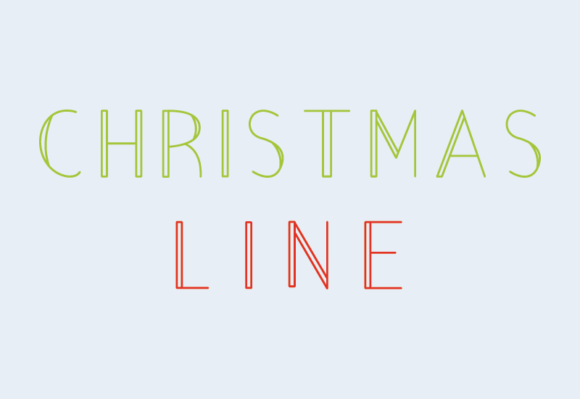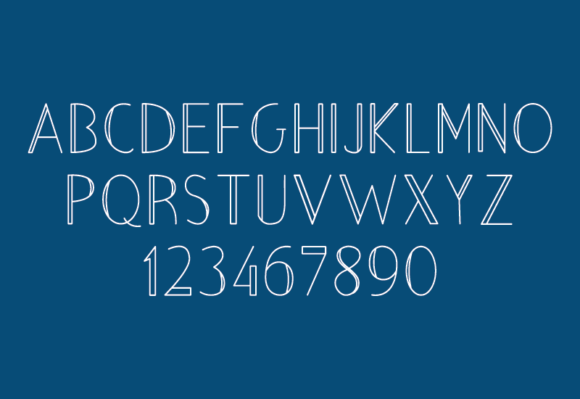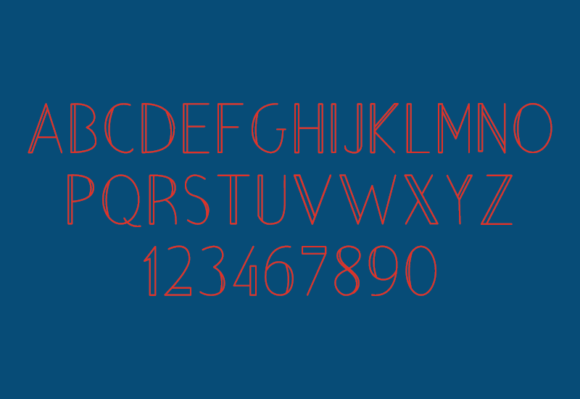
Introducing Christmas Line Font: Elevate Your Designs with Elegance
Are you on the hunt for a font that exudes elegance and sophistication? Look no further than the Christmas Line Font! This stunning sans serif font is perfect for designers and crafters who want to add a touch of luxury to their creations. With its incredibly versatile style, Christmas Line Font is sure to become a favorite in your collection.
What Makes Christmas Line Font So Special?
Christmas Line Font is an elegant and delicate sans serif font that boasts a unique and sophisticated style. Its clean lines and subtle curves make it perfect for a wide range of design applications, from wedding invitations and stationery to social media posts and more. Whether you’re a professional designer or a crafty DIY enthusiast, this font is sure to impress.
One of the best things about Christmas Line Font is its incredible versatility. This font can be used to create a wide range of designs, including:
• Wedding Invitations: Create beautiful and elegant wedding invitations that set the tone for a sophisticated and memorable celebration.
• Stationery: Add a touch of luxury to your stationery with Christmas Line Font, perfect for business cards, letterheads, and more.
• Social Media Posts: Make your social media posts stand out with this eye-catching font, perfect for quotes, promotions, and more.
• Signs and Banners: Use Christmas Line Font to create stunning signs and banners for events, sales, and more.
• Crafting Projects: Add a touch of elegance to your crafting projects, such as handmade cards, gift tags, and more.
Why Choose Christmas Line Font?
So why choose Christmas Line Font over other fonts? Here are just a few reasons:
• Unique Style: Christmas Line Font boasts a unique and sophisticated style that’s sure to set your designs apart.
• Elegant and Delicate: This font is perfect for designers and crafters who want to add a touch of elegance and sophistication to their creations.
• Versatile: Christmas Line Font can be used for a wide range of design applications, making it a great addition to your font collection.
• Easy to Read: This font is easy to read, even at small sizes, making it perfect for body text and more.
Tips for Using Christmas Line Font
Here are a few tips for getting the most out of Christmas Line Font:
• Pair with Other Fonts: Experiment with pairing Christmas Line Font with other fonts to create stunning contrast and visual interest.
• Use for Headings: Use Christmas Line Font for headings and titles to add a touch of elegance and sophistication.
• Experiment with Colors: Try out different colors and textures to add depth and interest to your designs.
In conclusion, Christmas Line Font is a stunning and versatile sans serif font that’s perfect for designers and crafters who want to add a touch of elegance and sophistication to their creations. With its unique style, delicate curves, and easy-to-read design, this font is sure to become a favorite in your collection. So why wait? Download Christmas Line Font today and start creating gorgeous designs that will leave a lasting impression!